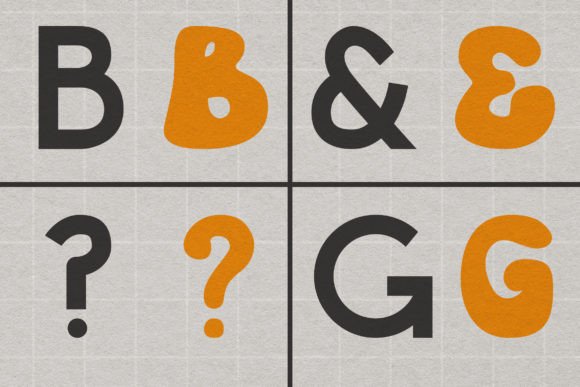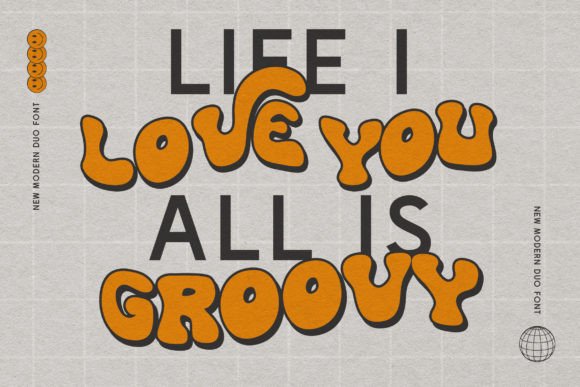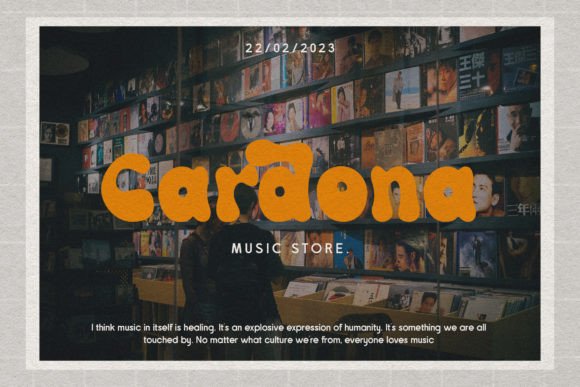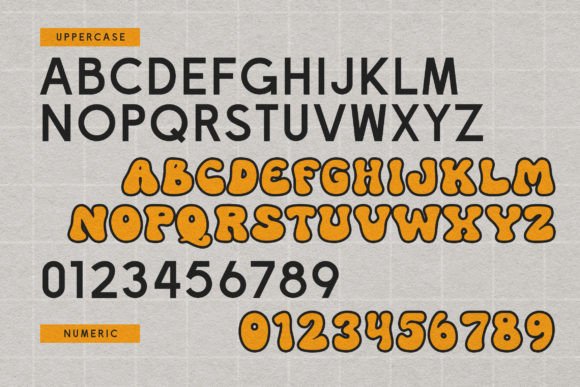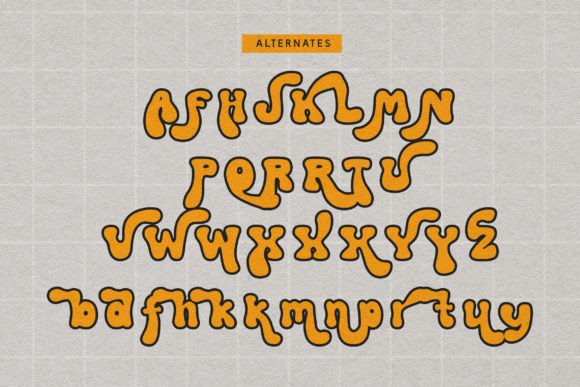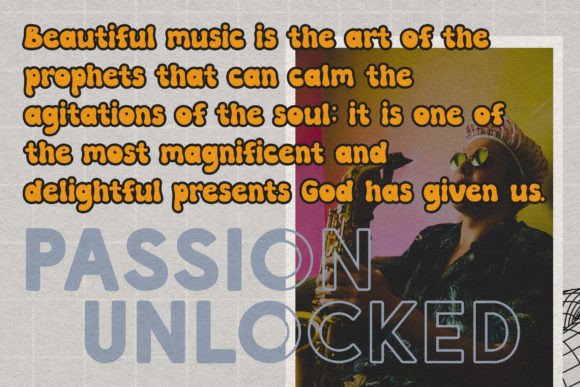
Introducing Balance Groovy Font: The Ultimate Retro Display Font
Are you tired of using the same old fonts in your designs? Do you want to add a touch of nostalgia and fun to your projects? Look no further than Balance Groovy Font, a quirky and distinctive display font that’s perfect for creating eye-catching posters, album covers, and more.
A Blast from the Past: The 1980s Vibe of Balance Groovy
Balance Groovy Font is a bold and energetic font that exudes a 1980s vibe. Its unique design and bold lettering create a sense of fun and playfulness, while its neon colors and futuristic style add a touch of nostalgia. This font is perfect for designers and crafters who want to create retro-inspired designs that are sure to stand out.
Key Features of Balance Groovy Font
- PUA Encoded: Balance Groovy Font is PUA encoded, which means you can access all of the amazing glyphs and ligatures with ease. This makes it easy to create unique and creative designs that showcase your personality.
- Bold and Energetic: The bold lettering and unique design of Balance Groovy Font create a sense of energy and fun. This font is perfect for creating eye-catching headlines and titles that are sure to grab attention.
- Retro and Vibrant: Balance Groovy Font is perfect for adding a retro and vibrant touch to your designs. Its neon colors and futuristic style are sure to evoke a sense of nostalgia and fun.
Balance Groovy Font is perfect for a variety of projects, including:
- Posters: Create eye-catching posters that are sure to grab attention with Balance Groovy Font.
- Album Covers: Add a touch of nostalgia and fun to your album covers with Balance Groovy Font.
- Signs and Banners: Create unique and creative signs and banners that showcase your personality with Balance Groovy Font.
- Digital Art: Add a retro and vibrant touch to your digital art with Balance Groovy Font.
Why Choose Balance Groovy Font?
There are many reasons to choose Balance Groovy Font for your next project. Here are just a few:
- Unique and Creative: Balance Groovy Font is a unique and creative font that’s sure to make your designs stand out.
- Easy to Use: Balance Groovy Font is PUA encoded, which makes it easy to access all of the amazing glyphs and ligatures.
- Versatile: Balance Groovy Font is perfect for a variety of projects, from posters and album covers to signs and digital art.
Get Ready to Add a Touch of Nostalgia to Your Designs
In conclusion, Balance Groovy Font is a quirky and distinctive display font that’s perfect for designers and crafters who want to add a touch of nostalgia and fun to their projects. With its bold lettering, unique design, and neon colors, this font is sure to evoke a sense of nostalgia and fun. So if you’re looking for a font that’s sure to make your designs stand out, look no further than Balance Groovy Font.